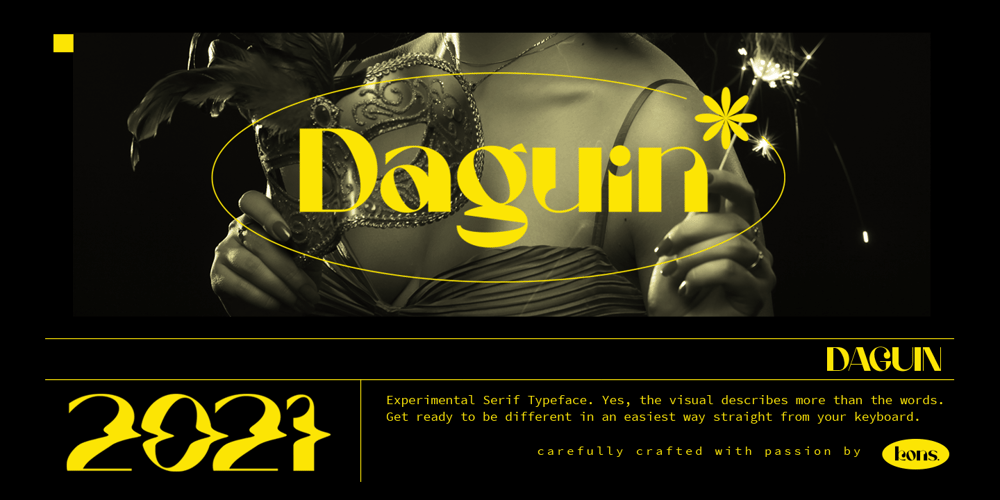
Daguin Font Family was designed by Abdilah and published by Konstantine Studio. Daguin contains 1 styles and family package options. Introducing DAGUIN, inspired by the medieval look and feel in fashion visual, fusion up with the contemporary modern serif to reach the wider range of visual trend possibilities. From past to the future.Perfectly fit for your logo, magazine, look book, social media branding and content, beauty blog, fashion branding, website, clothing, merchandise, mood board concept, etc.